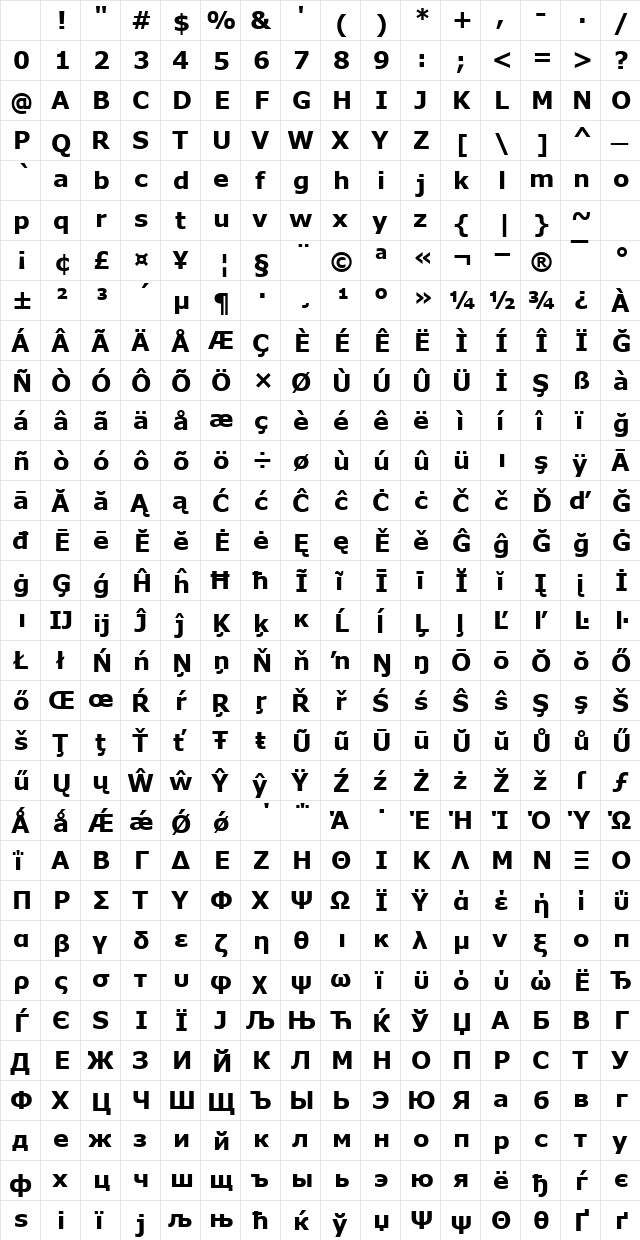
Complete TrSah Verdana Bold glyph index. Displaying only characters natively supported by TrSah Verdana Bold font.
TrSah Verdana is a composed and adaptable typeface that performs quietly and consistently across a wide range of design contexts. Its bold stroke weight gives it real presence on the page.